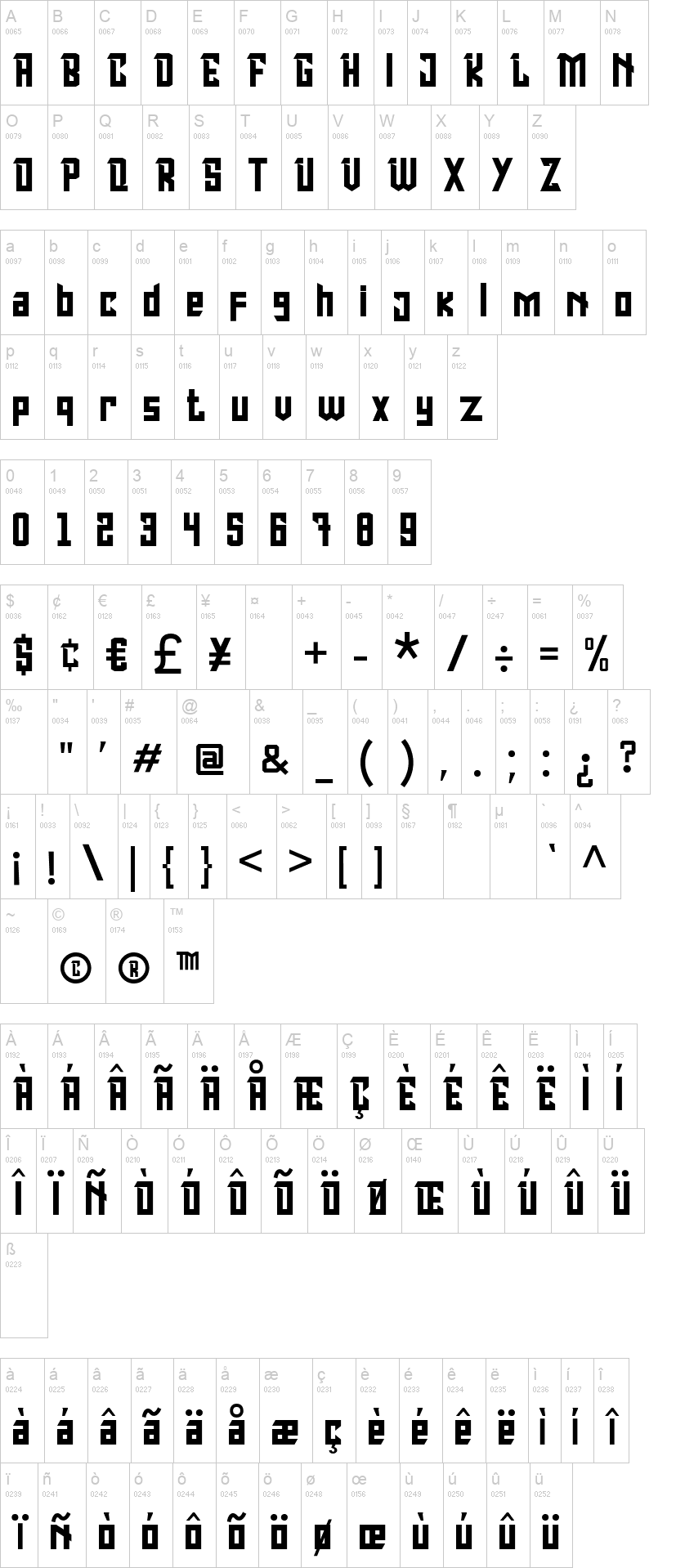
Fastron
Fastron Font is suitable for all kinds of strong designs. It allows you to create strong logos such as military and automotive
Fastron also includes a full set of upper and lowercase letters, numbers, punctuation, multilingual.